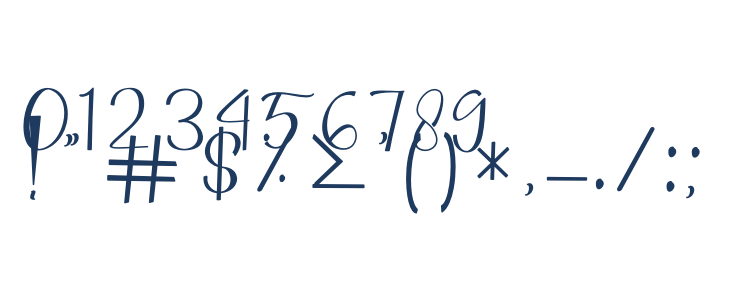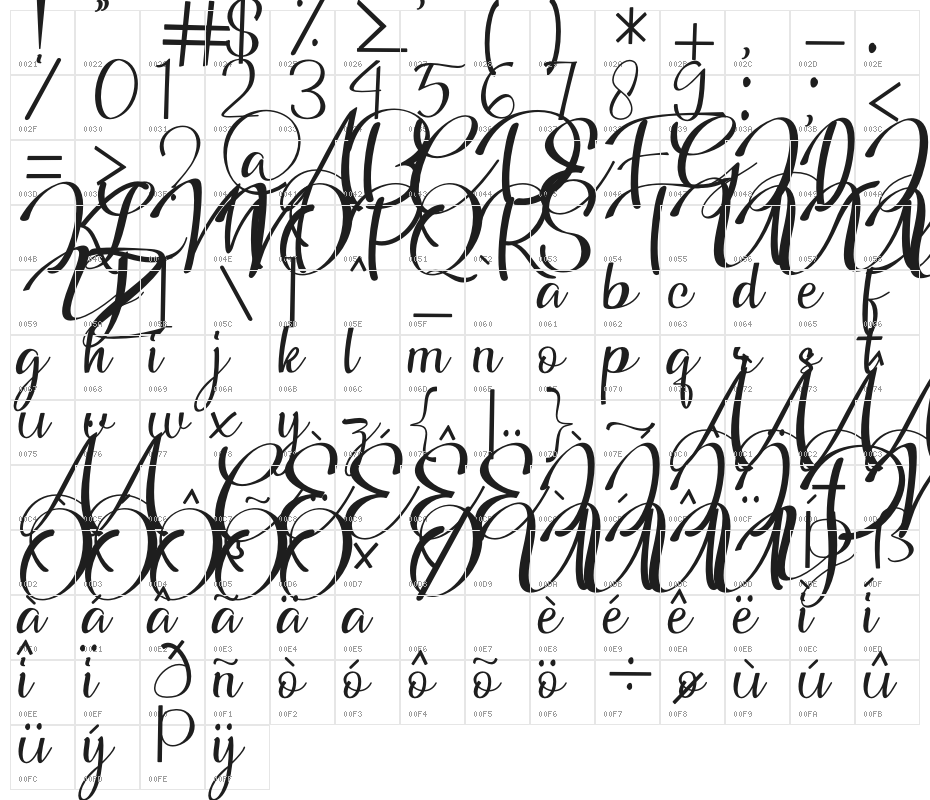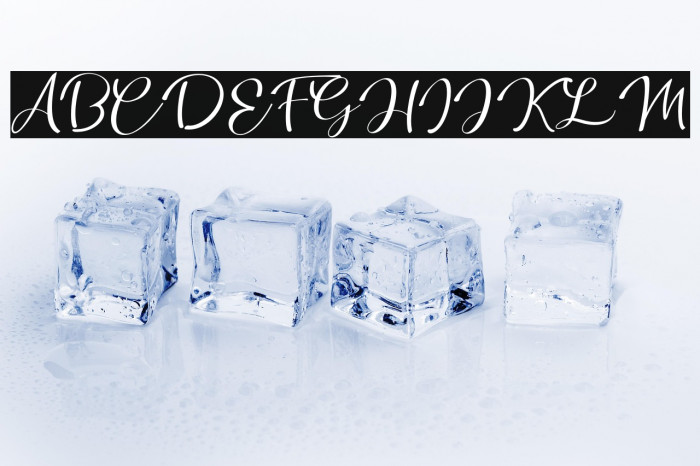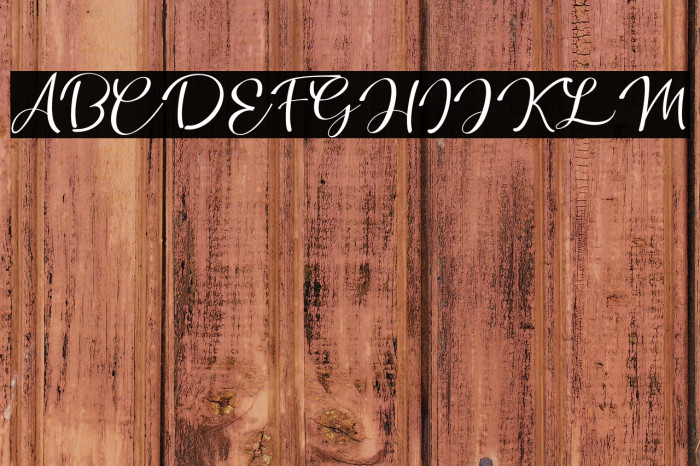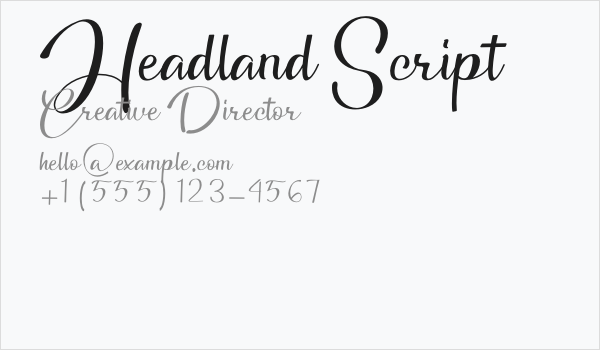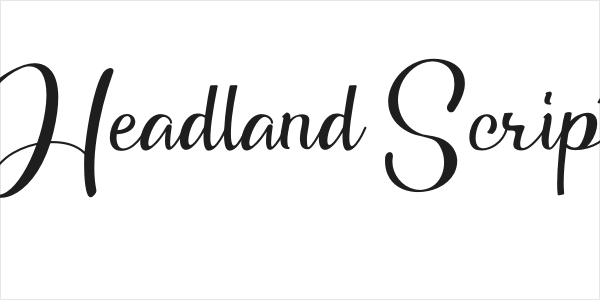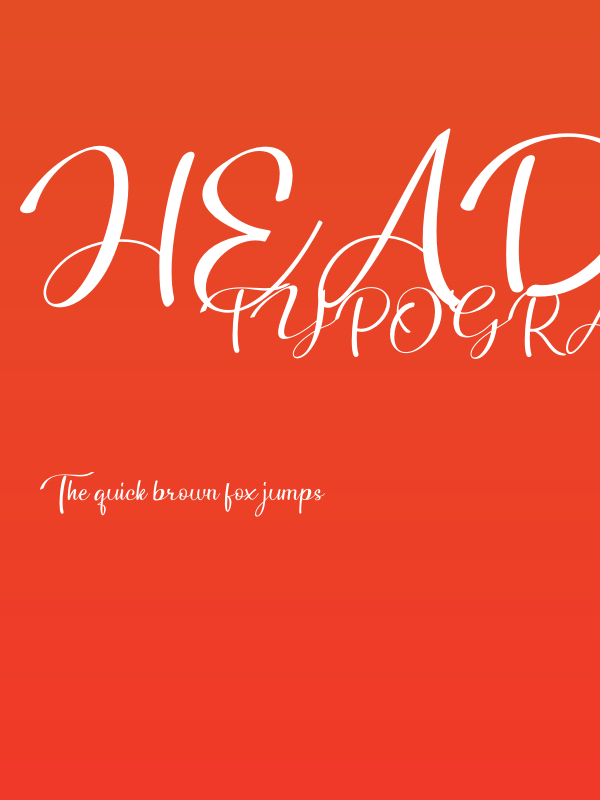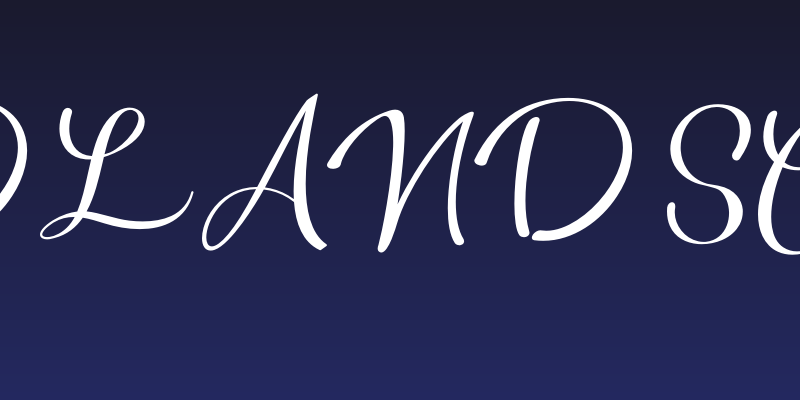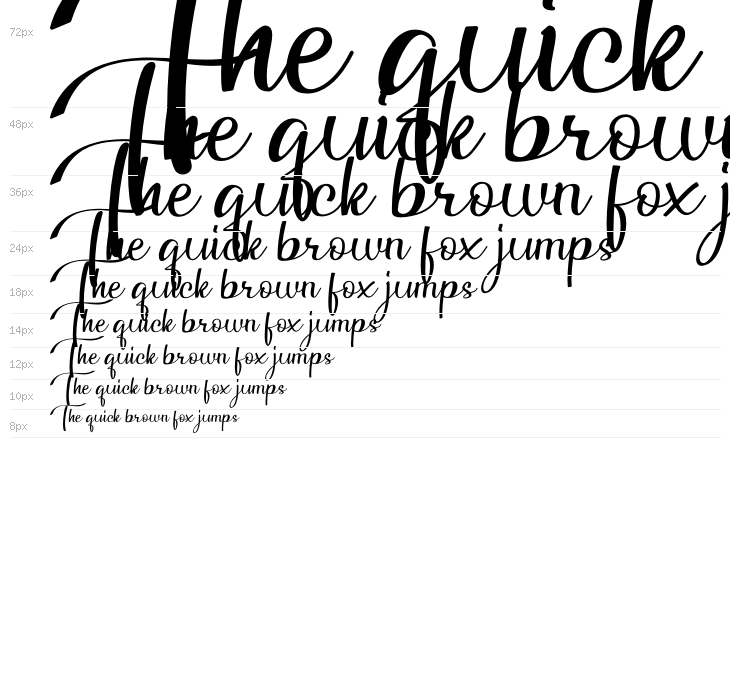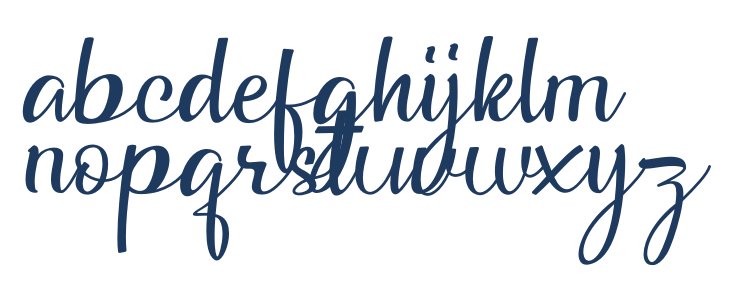
Headland Script Font
Headland Script Description
This font features a flowing, cursive style that exudes elegance and sophistication. The uppercase letters are characterized by their graceful loops and swirls, giving them a sense of movement and fluidity. The lowercase letters maintain a consistent, smooth flow with a slightly more compact form, enhancing readability while retaining the script's decorative nature. The numerals are designed with a similar cursive flair, ensuring a cohesive look across all characters. Special characters are thoughtfully integrated, maintaining the font's overall aesthetic. The font's design is ideal for projects that require a touch of elegance and personal flair.
Overall StyleElegant, Decorative
Use CaseLogos, Invitations, Decorative text
Proposed ProjectsWedding invitations, greeting cards, branding, and elegant signage.